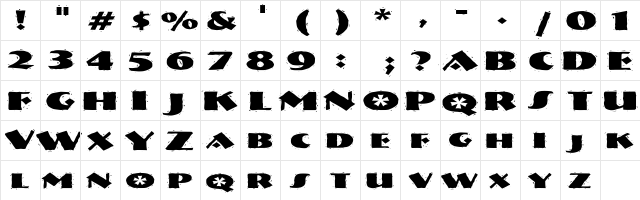
NatividadExtended Regular
Design Context for NatividadExtended
NatividadExtended is a composed and adaptable typeface that performs quietly and consistently across a wide range of design contexts.